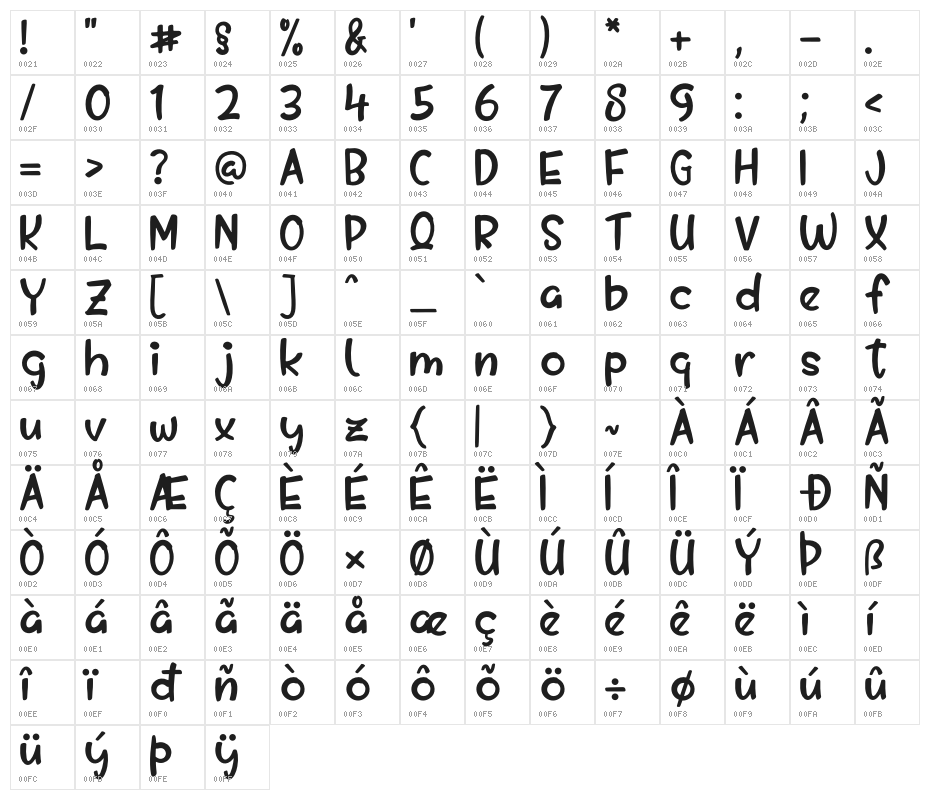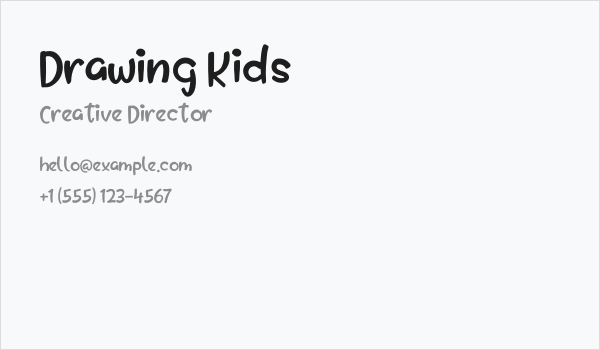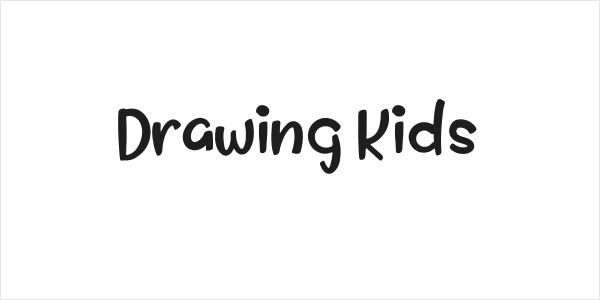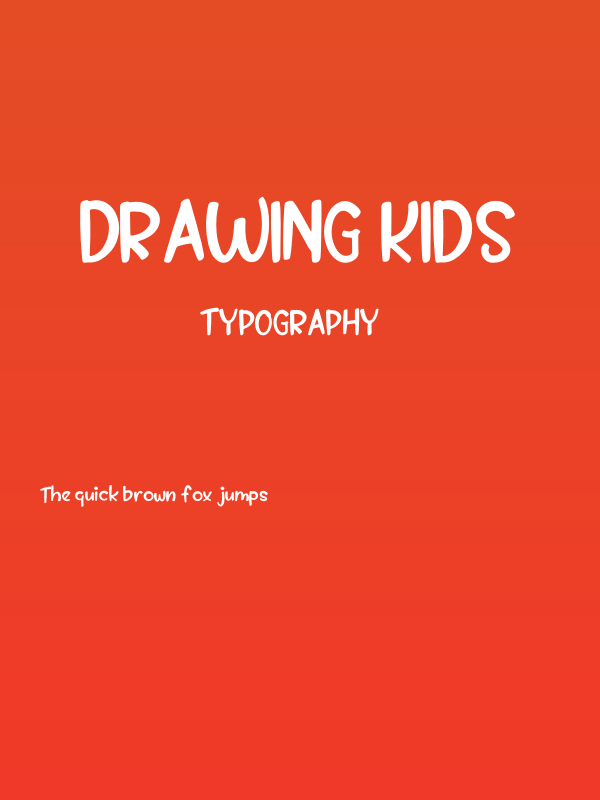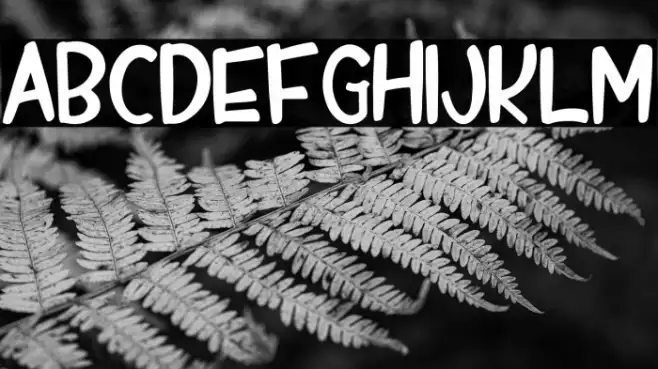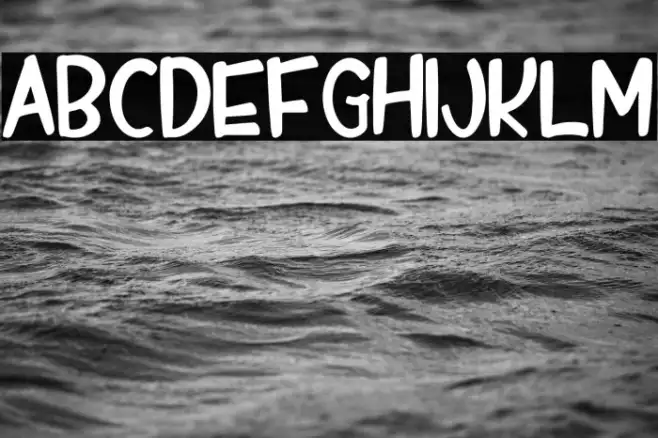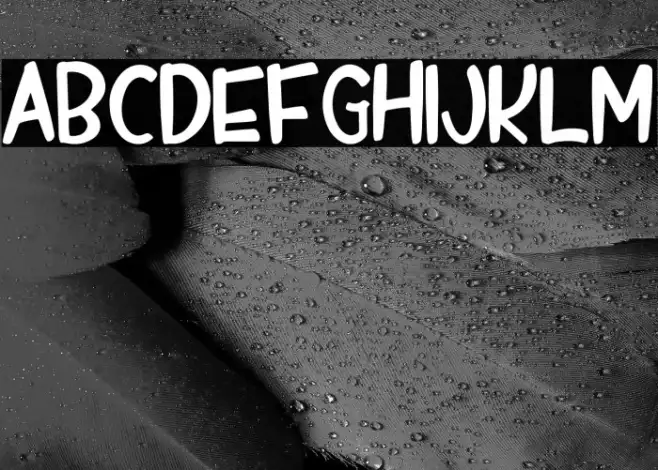
Drawing Kids Font
Drawing Kids Description
This playful and whimsical font features a hand-drawn style that exudes a sense of fun and creativity. The characters are bold and rounded, with a slightly irregular baseline that adds to its casual and informal appearance. The uppercase and lowercase letters are well-balanced, maintaining a consistent flow throughout. The numerals and special characters are crafted with the same playful touch, making them perfect for projects that require a lighthearted and youthful vibe. This font is ideal for children's books, educational materials, or any design that aims to capture a sense of joy and imagination.
| Use Case | Headlines, Logos, Children's materials |
| Proposed Projects | Children's books, educational materials, playful branding, greeting cards, and creative posters. |